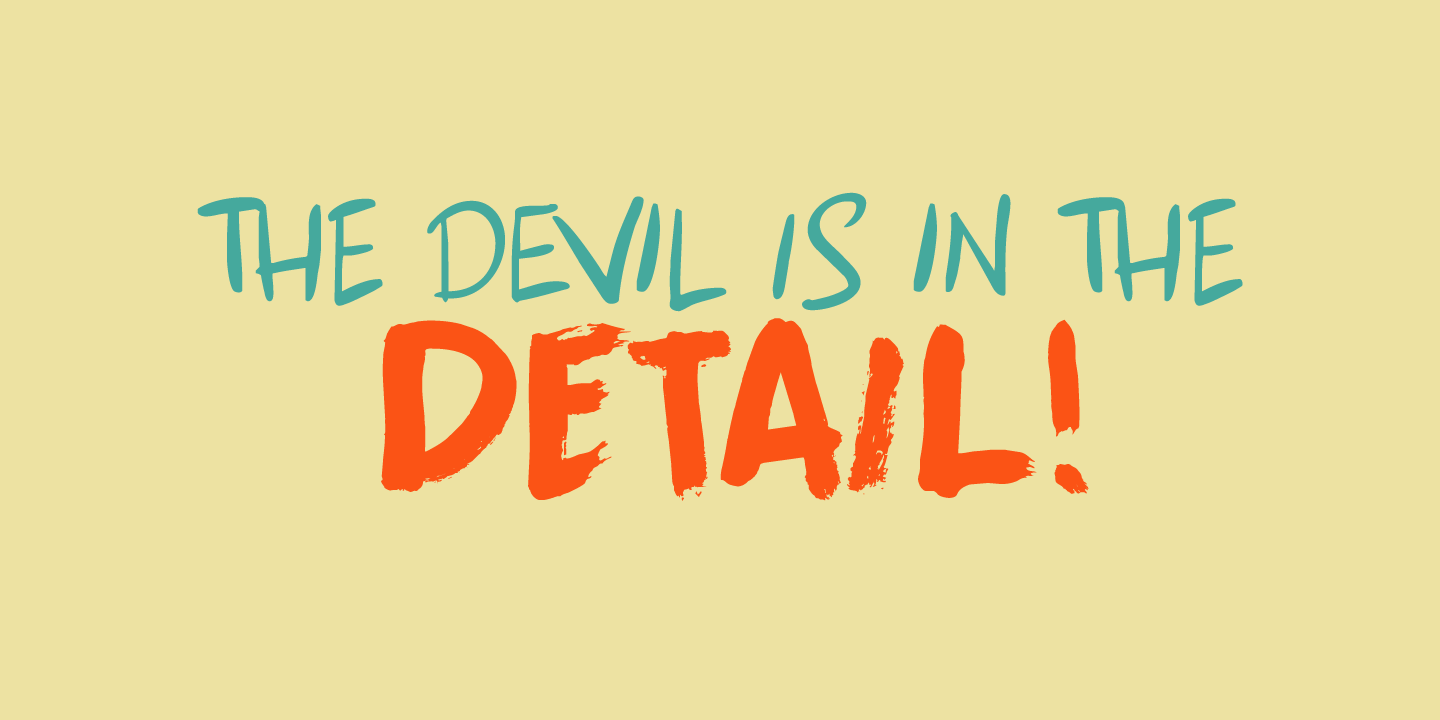
Apex Brush Free Download
This dynamic brush font is perfect for extreme sports branding, adventure gear marketing, mountain climbing equipment logos, peak performance campaigns, outdoor expedition promotions, athletic achievement designs, summit conquest materials, and energetic design projects that celebrate reaching the highest peaks and ultimate achievement.
Apex Brush Font is exciting because it embodies summit energy with its bold brush strokes that climb like determined mountaineers ascending to victory. The font delivers peak performance sophistication while maintaining altitude-ready readability that conquers design challenges and reaches new heights.
The Apex Brush Font family includes regular and textured versions with adventure-themed decorative elements, mountain symbols, and peak ornaments, providing designers with comprehensive tools for creating summit typography that scales every creative challenge.
Ready to reach design's highest peak? Apex Brush Font Free Download offers designers climbing letterforms that ascend with adventurous energy and summit sophistication. This conquering typeface combines extreme aesthetics with professional functionality, making it ideal for outdoor brands, adventure companies, and peak performance campaigns. Whether you're designing mountain climbing gear catalogs, extreme sports promotions, or adventure expedition materials, this font delivers summit appeal. The boldly brushed characters feature climbing strength while maintaining excellent readability across adventure applications. Perfect for businesses in outdoor sports, adventure gear, mountain guiding, and extreme athletics that celebrate peak achievement and summit conquest. The font's apex construction creates memorable brand recognition that resonates with adventure seekers worldwide. Each letter showcases deliberate ascent that mirrors the triumphant journey to mountain summits. Download today and conquer creative peaks with this premium brush font that transforms ordinary text into extraordinary expressions of summit victory and the unstoppable climb of Apex Brush Font Free Download achievement.